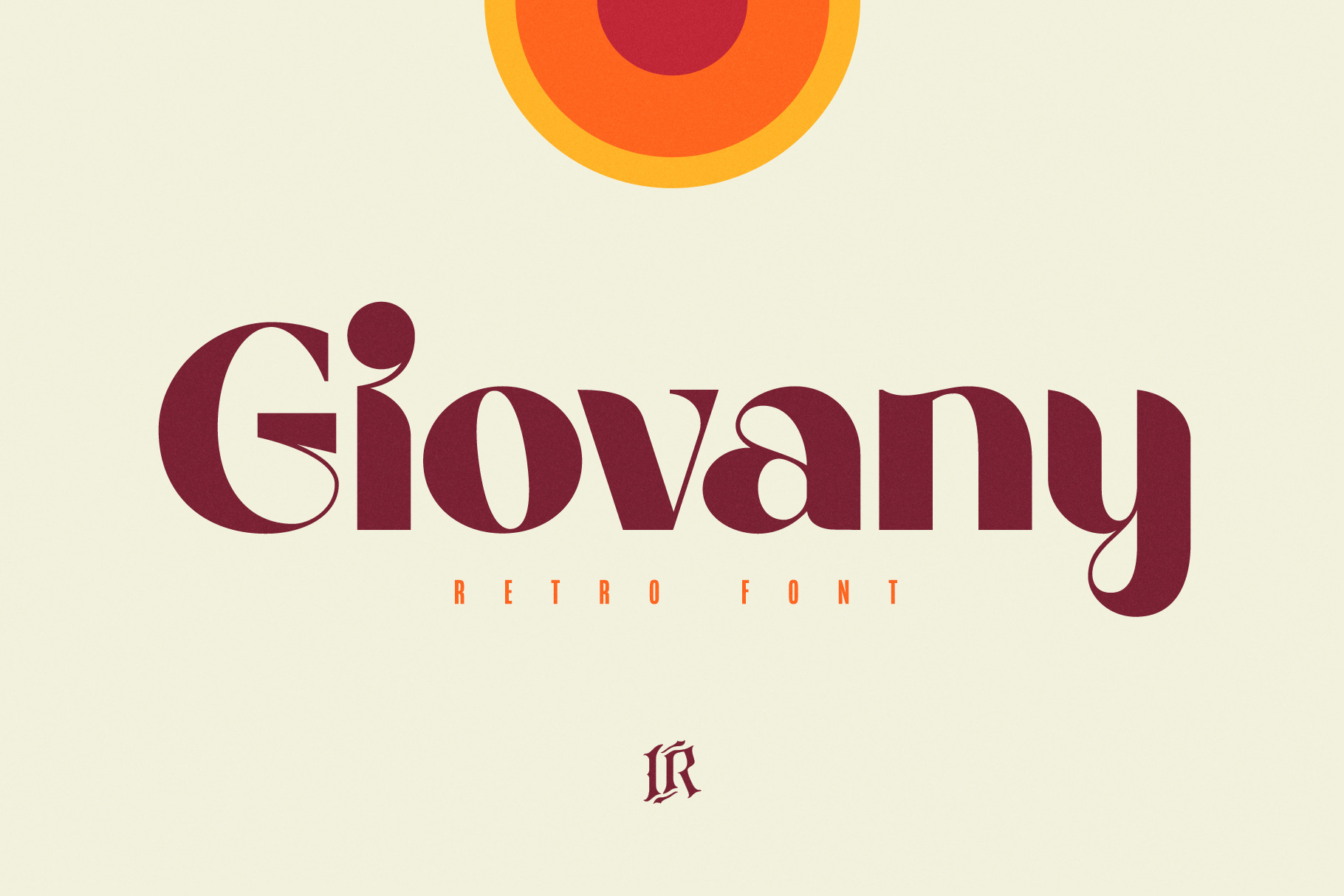
GIOVANY is a stylish font inspired by 70’s vintage fashion posters with a touch of modernity. Giovany Retro Font comes with multilingual support for Western and Central Europe.
Giovany is made mainly for headlines, titles, and other short texts and is well-suited for advertising, vintage mood board, branding, logotypes, packaging, titles, editorial design and modern and vintage design.